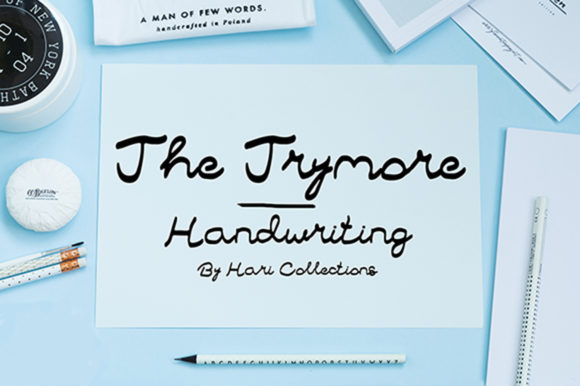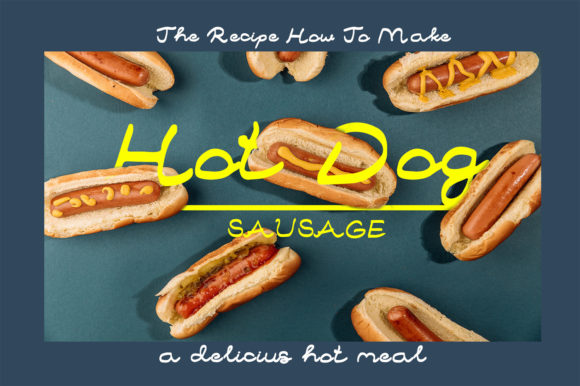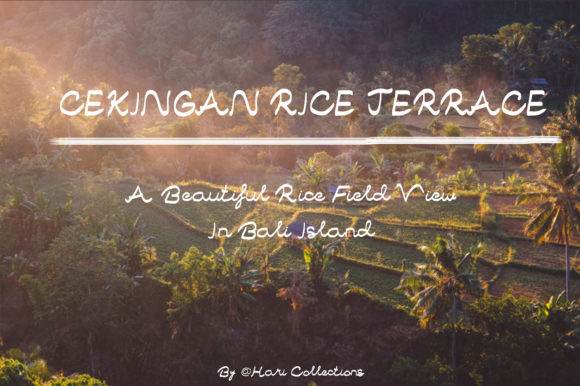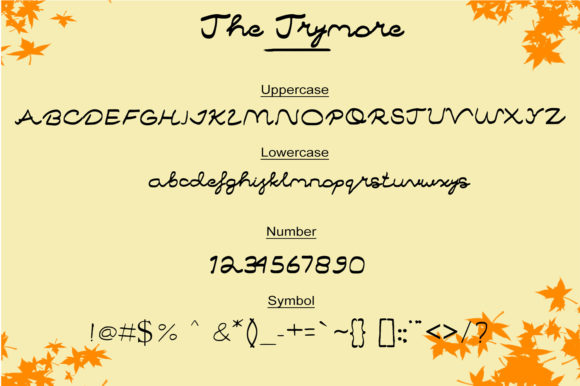
About The Trymore Font
The Trymore feels equally delicate and stylish. It looks lovely on wedding invitations, thank you cards, quotes, greeting cards, logos, business cards and every other design which needs a customized touch.